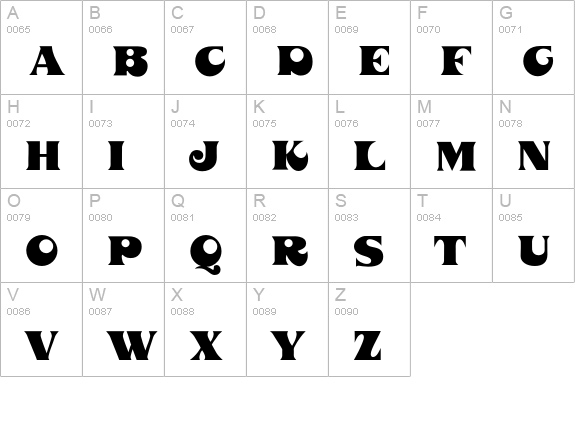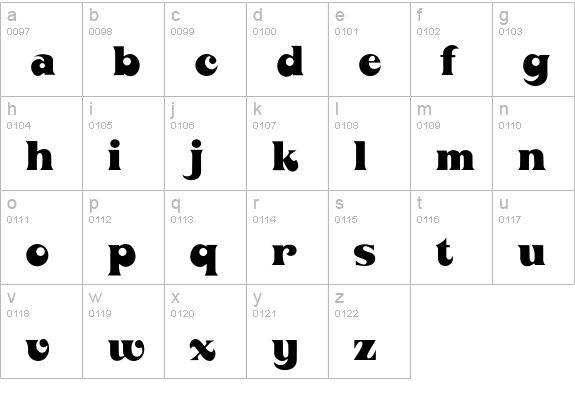
Dirigent Font Details
Dirigent font is a modern and elegant typeface that exudes sophistication and style. With its sleek lines and graceful curves, this font is perfect for adding a touch of class to any design project. Whether you're creating a logo, poster, or website, Dirigent font will make your text stand out and command attention. What's even better is that Dirigent font is completely free to download! You can easily access this stunning typeface at FontsMarket.com and start using it in your projects right away. Don't miss out on the opportunity to elevate your designs with the timeless beauty of Dirigent font. Download it now and let your creativity soar!